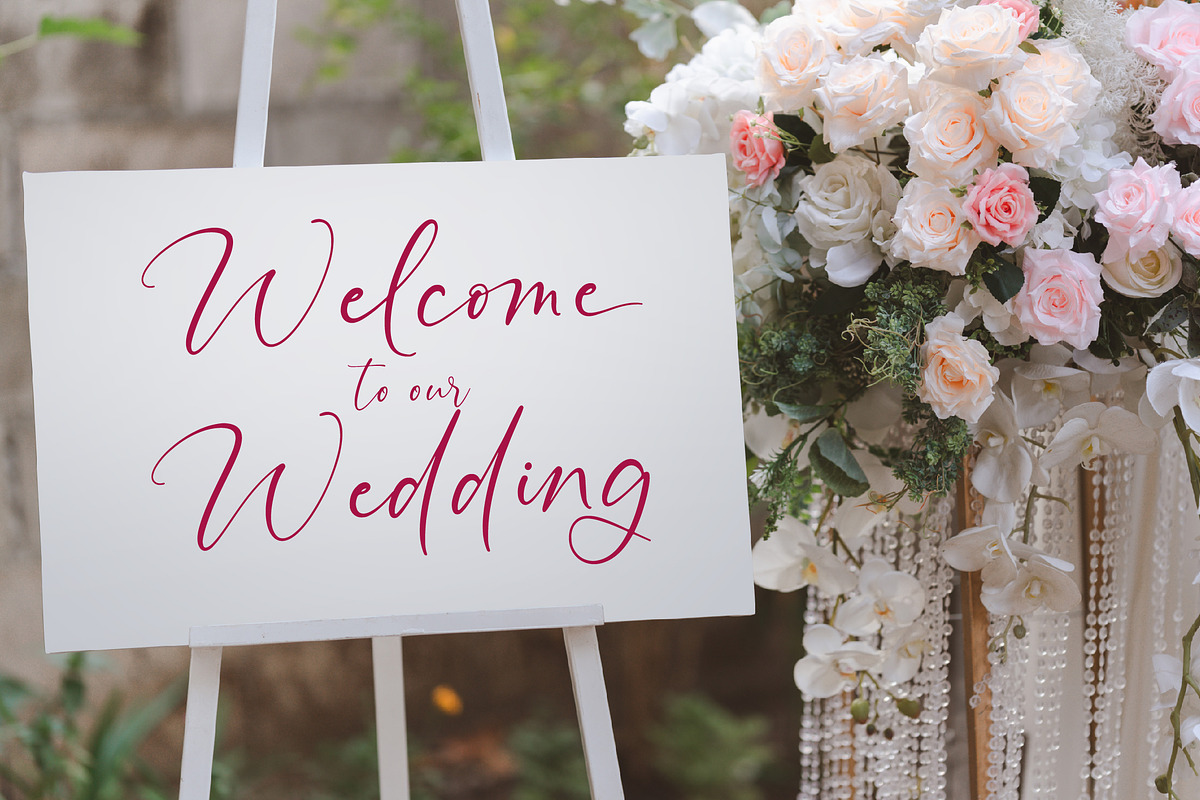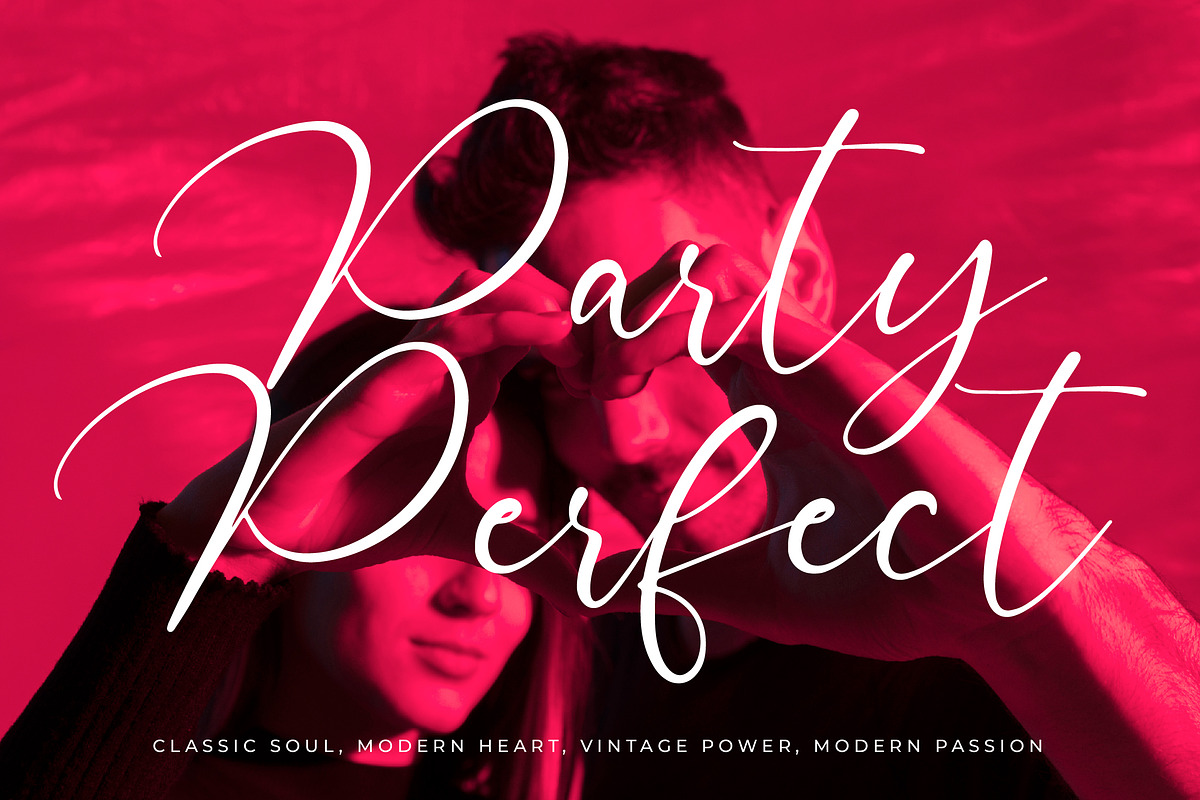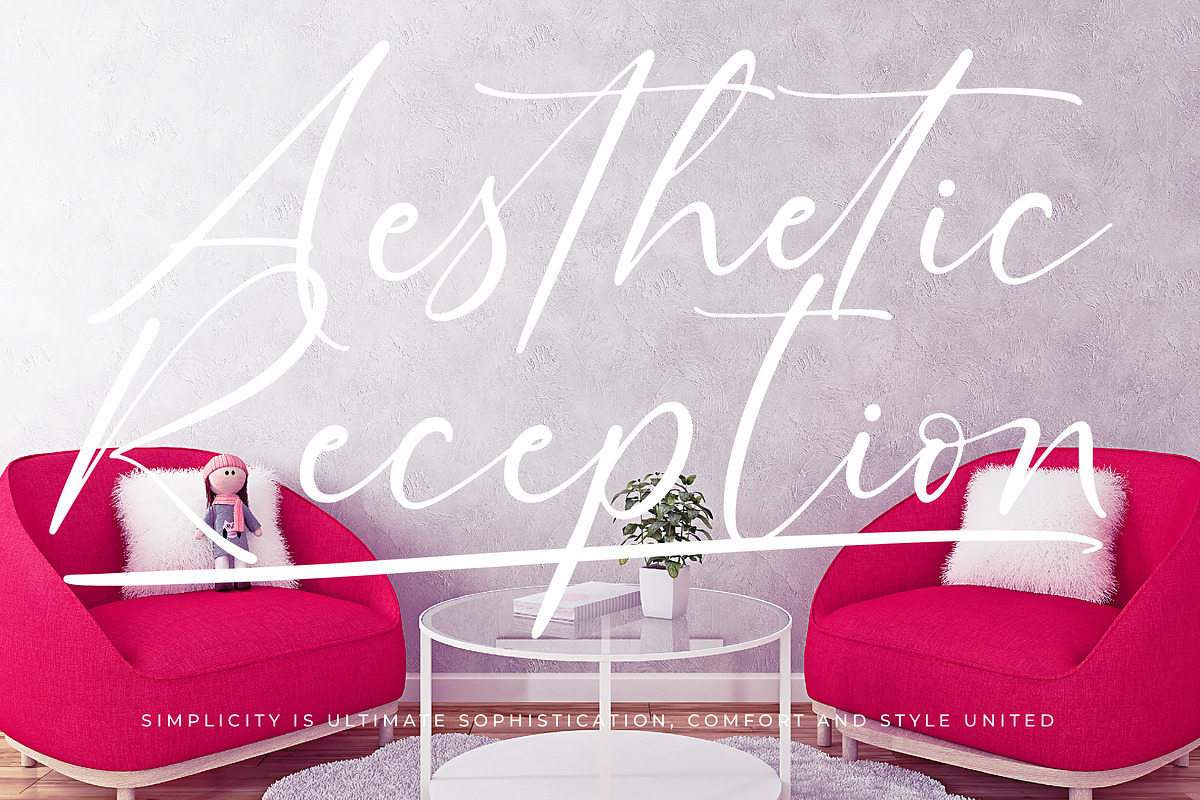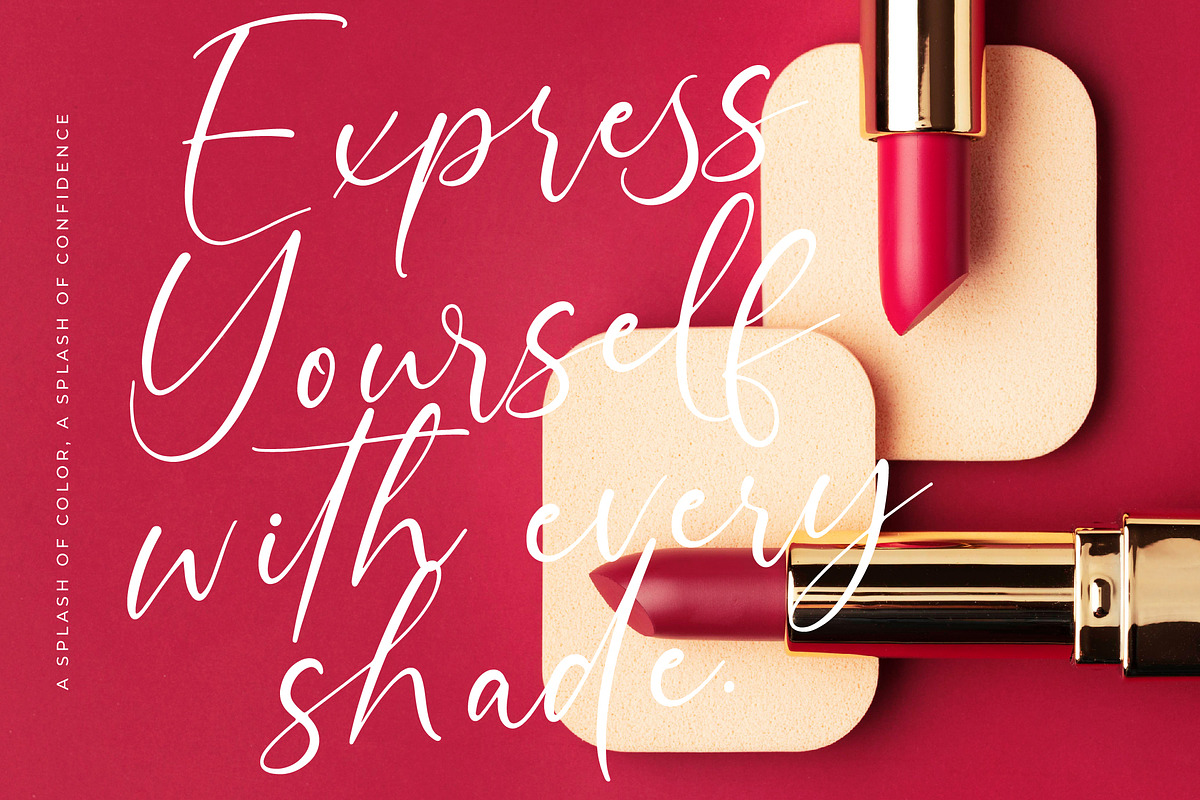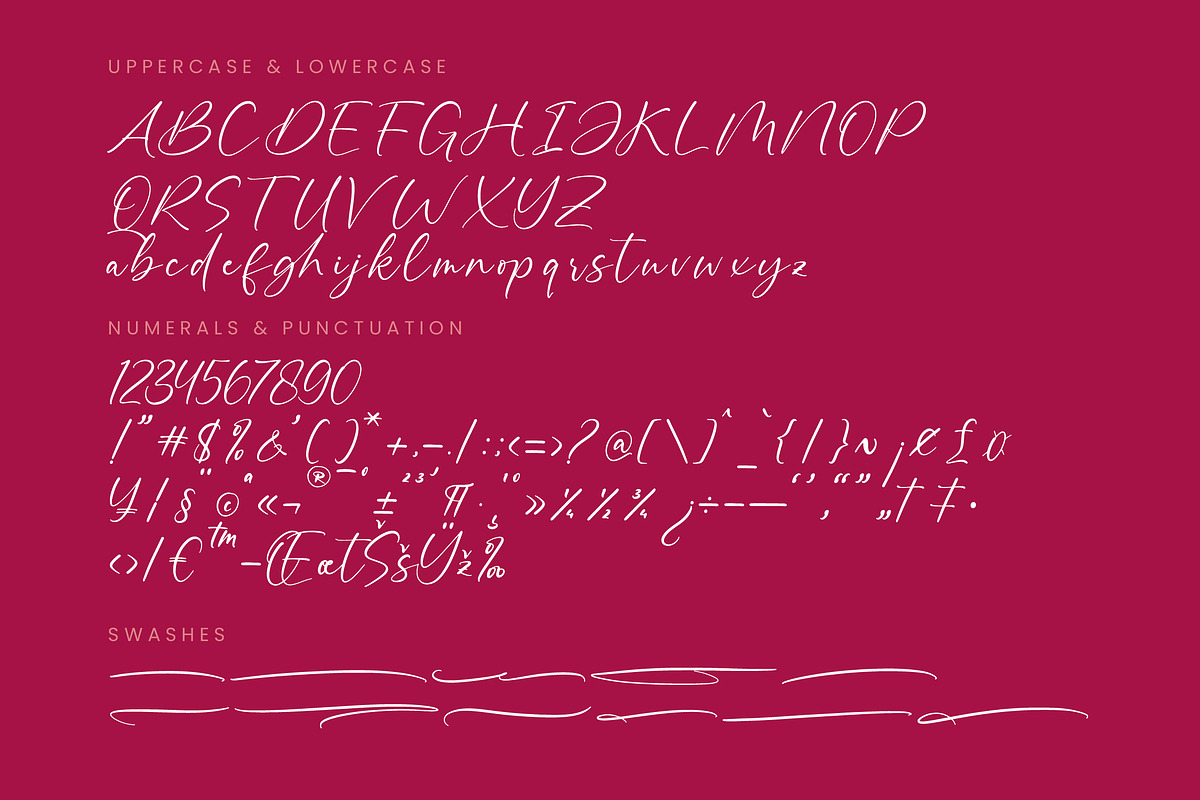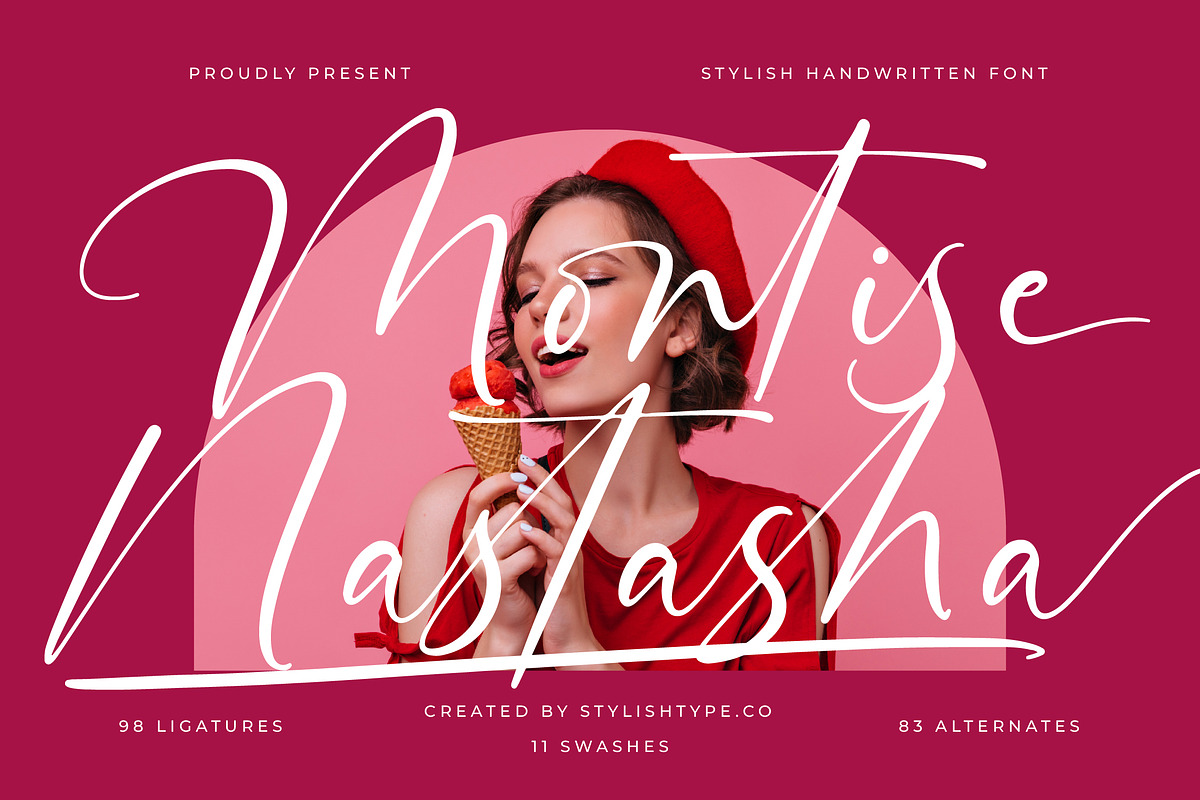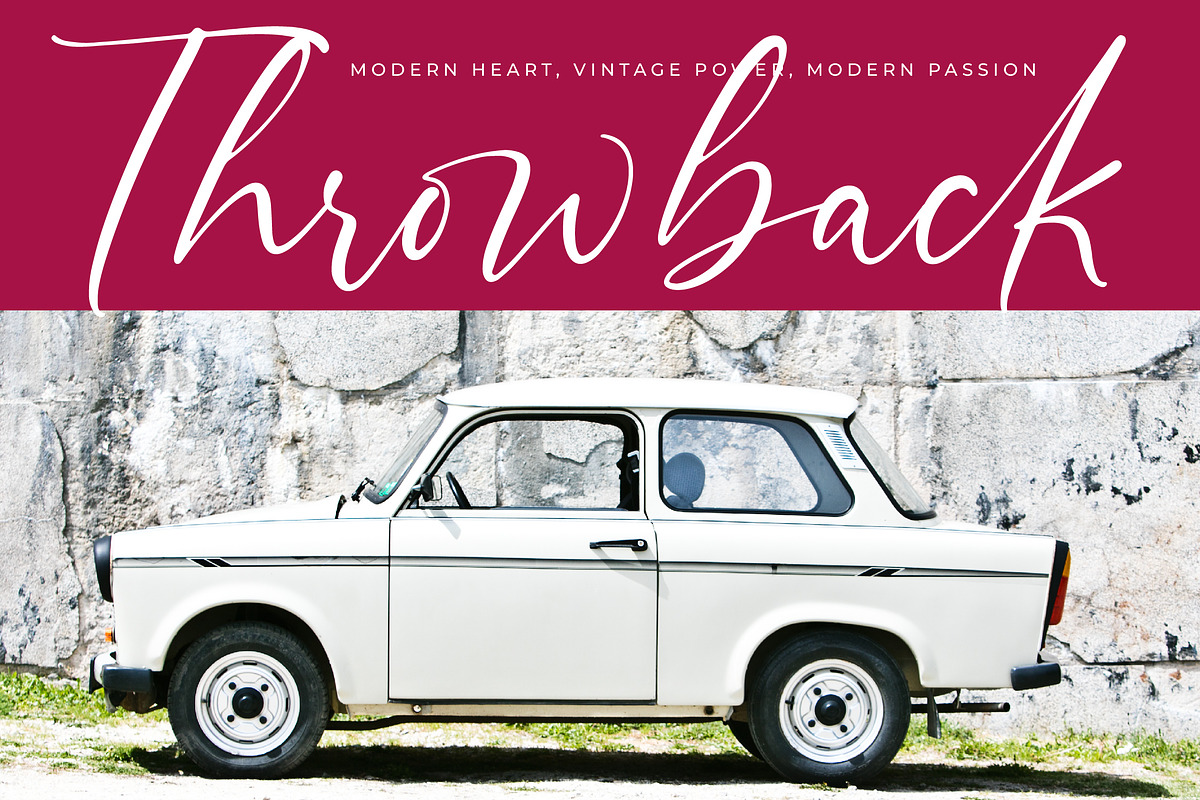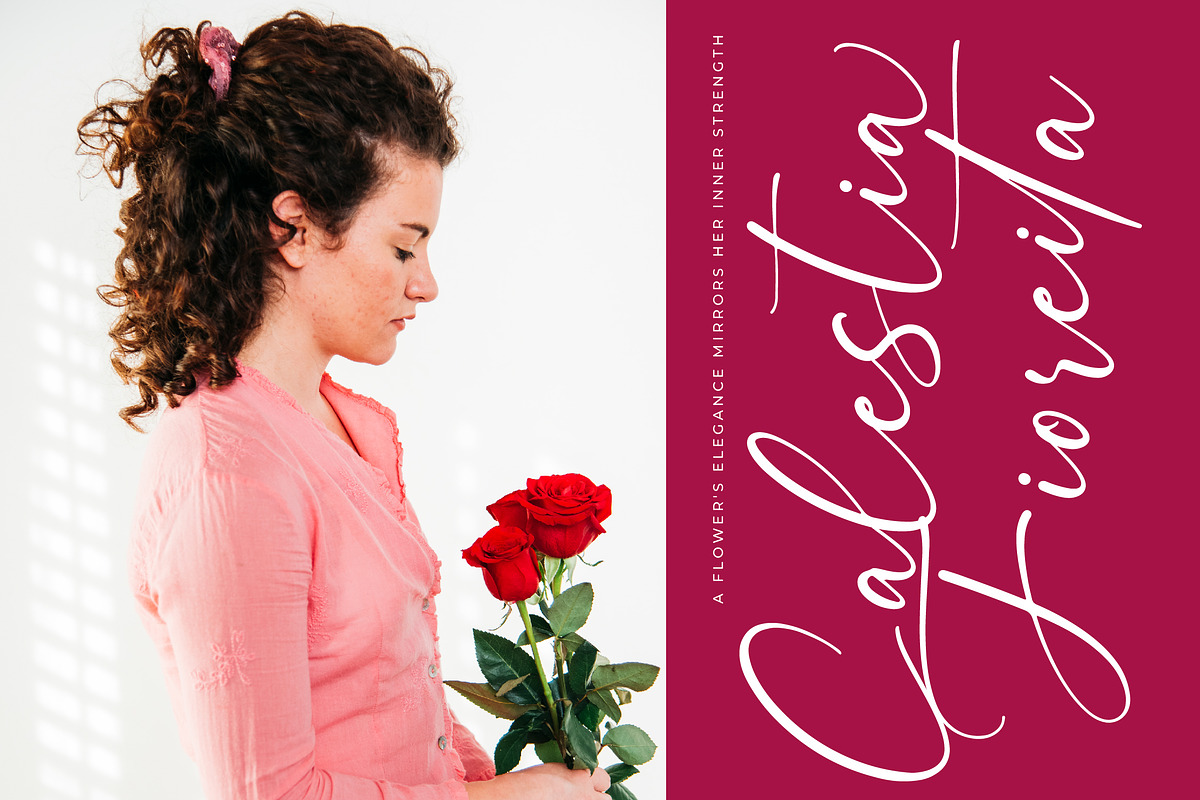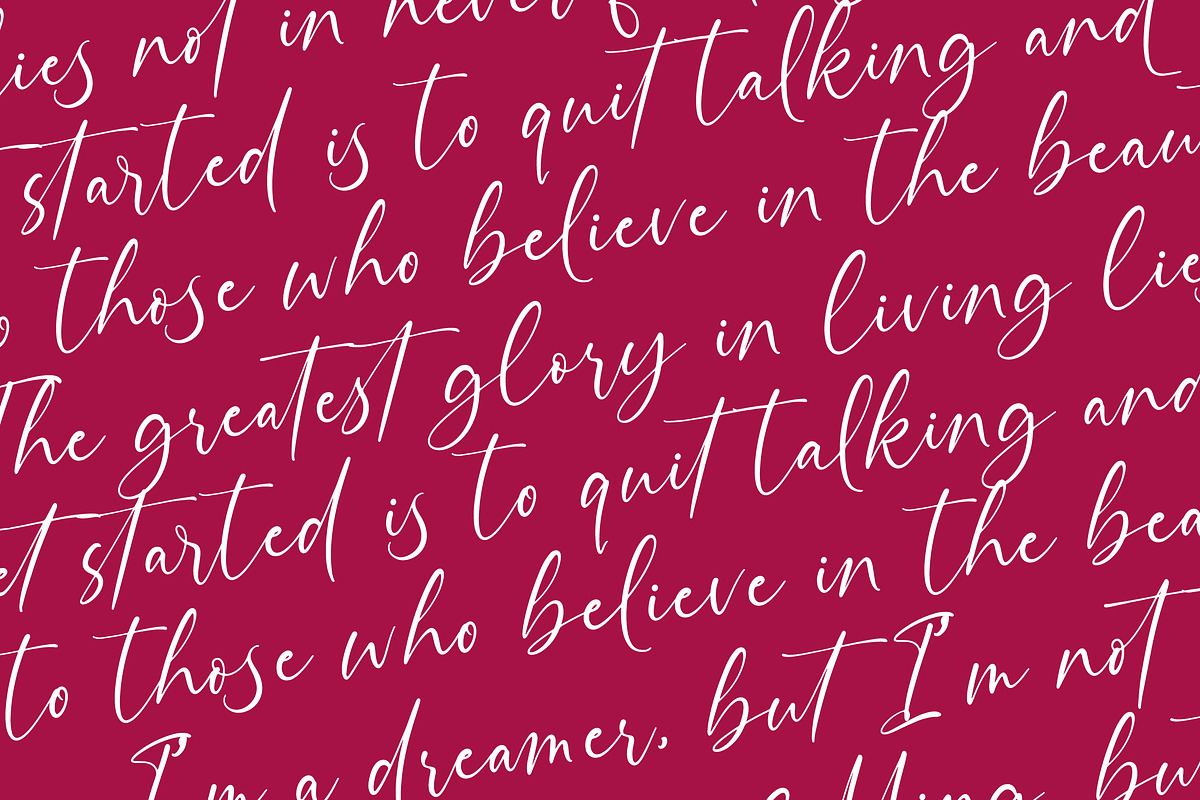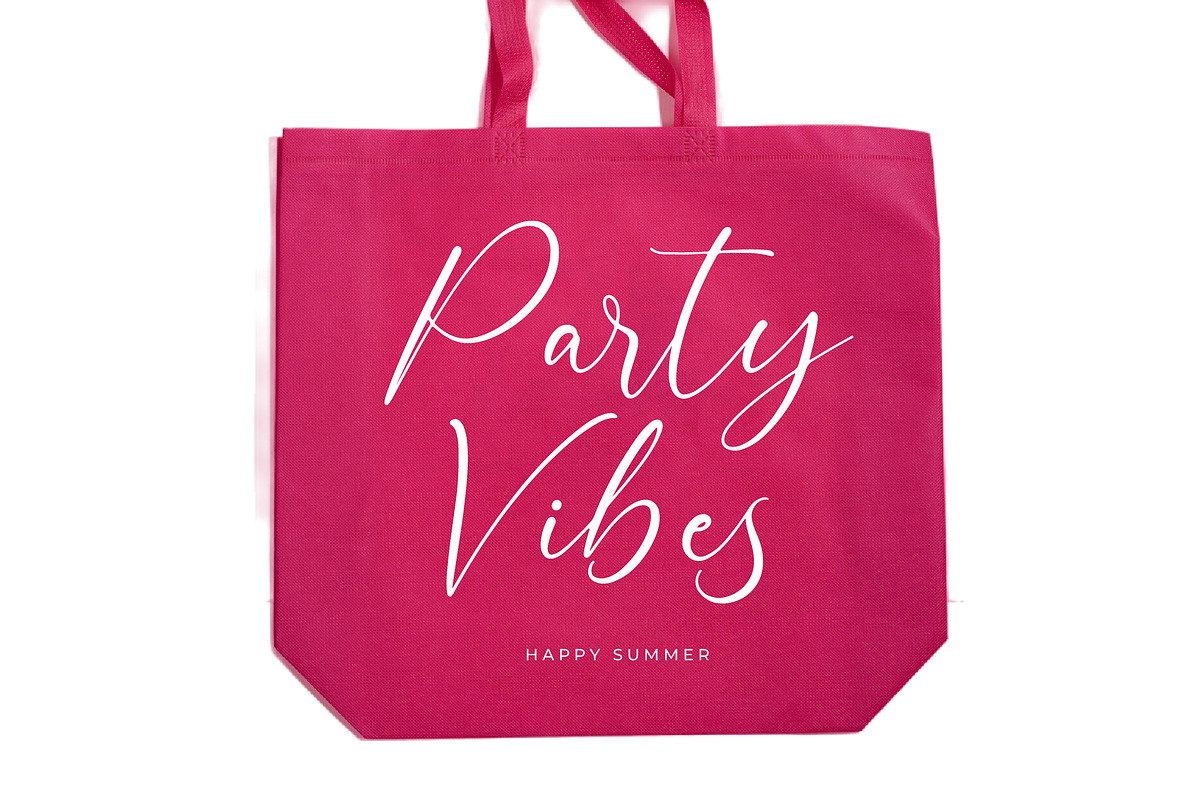
Montise Natasha Stylish Handwritten
Montise Natasha - Stylish Handwritten Font , from Stylishtype.Co , Suitable for any projects such as: logos, branding projects, homeware designs, product packaging, mugs, quotes, posters, shopping bags, t-shirts, book covers, name card, invitation cards, greeting cards, label, photography, watermark, special events, and all your other luxury and beautiful projects that need a Luxury Script taste.
- 98 Ligature 83 Alternates & 11 Swashes